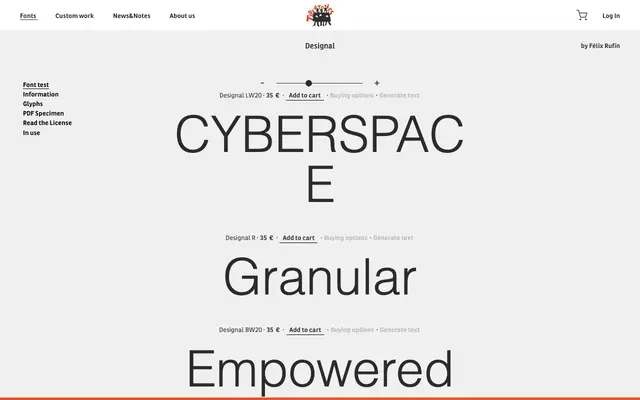
Designal
A modular display family by Félix Rufín with eight variants ranging from standard weights to stencil, fabric, packing and weather treatments.
Designal offers a broad set of display variants under a shared geometric structure, with cuts including LW20, R and BW20 alongside more textural offshoots such as Fabric, Packing, Packing Stencil and Weather. The stencil and packing variants give the family a strong industrial and printed-material register, useful for identities and editorial work that needs a technical or experimental tone. The range of styles within one family allows for varied visual expression while maintaining structural coherence.
Designal is a display typeface with multiple highly stylised variants including stencil, fabric, packing and weather cuts, placing it firmly in the display category with a geometric and industrial sensibility.